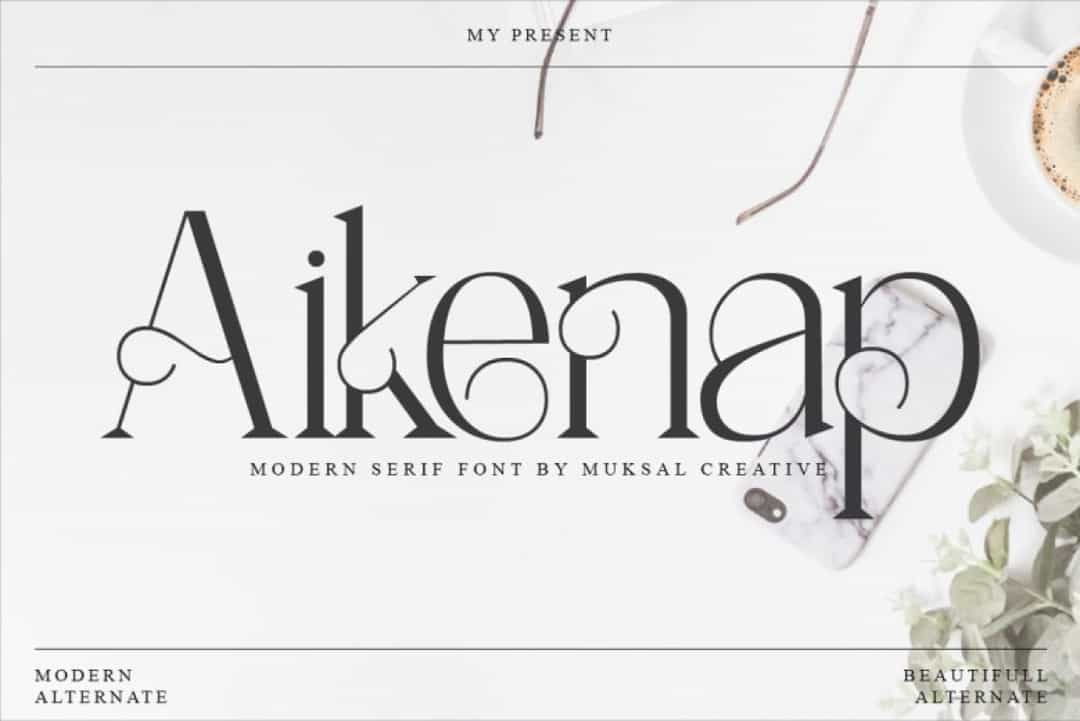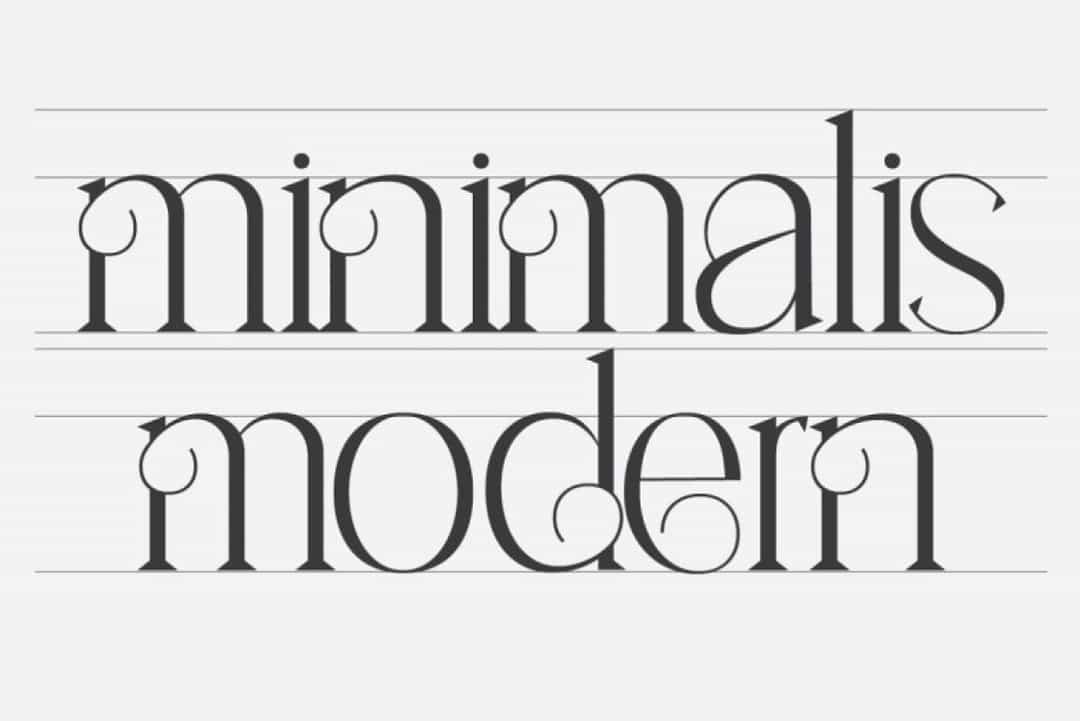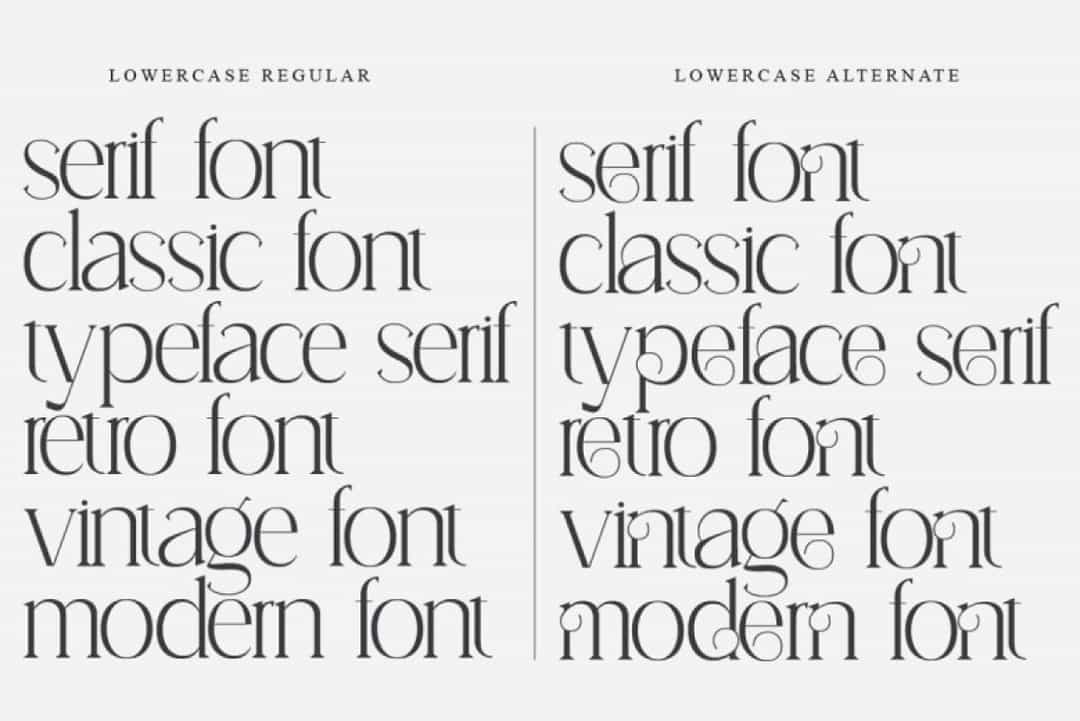
Aikenap Contemporary Serif is an eye-catching font with beautiful alternates, special ornamented glyphs, and multilingual support. It has become one of our go-to fonts, perfect for editorial projects such as designing logos, clothing branding, product packaging for magazines or simply adding trendy text overlays on any image background.